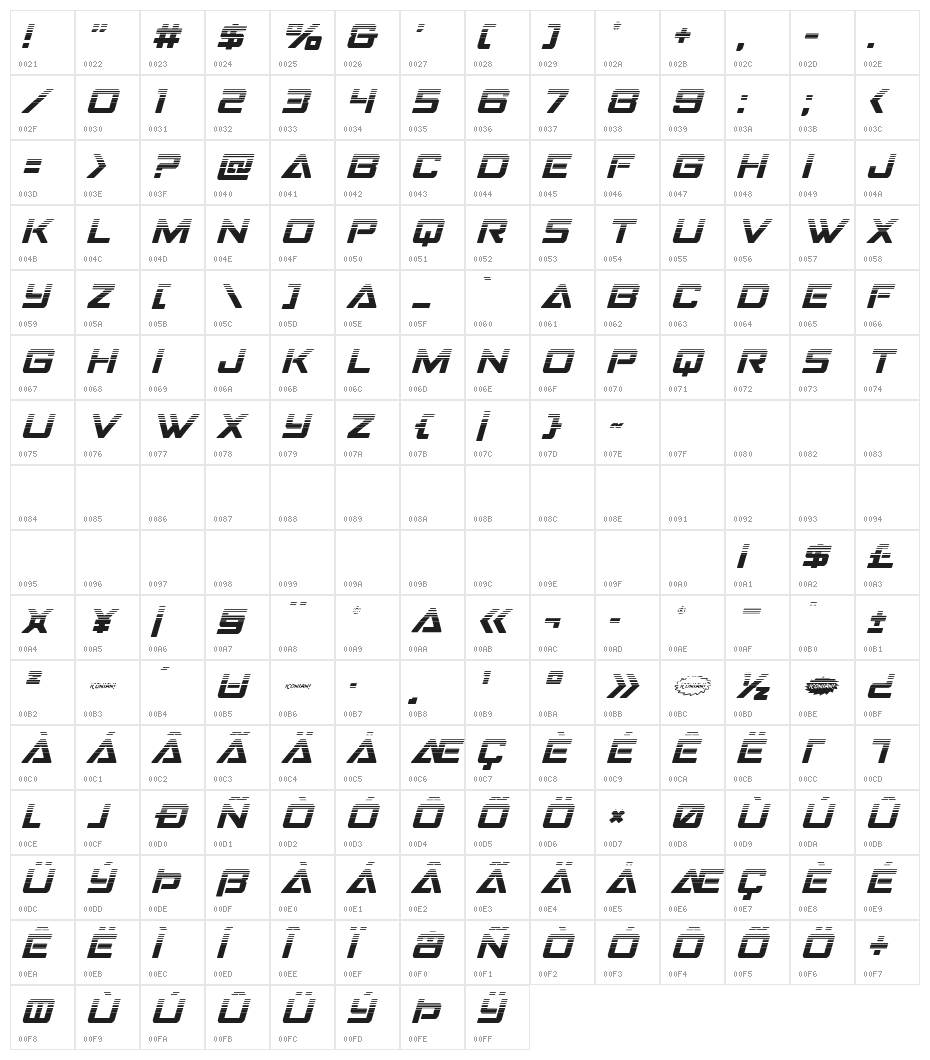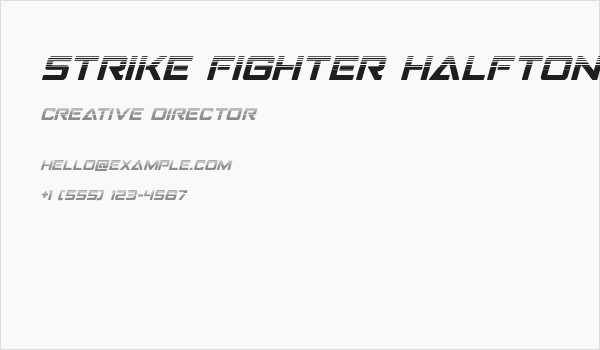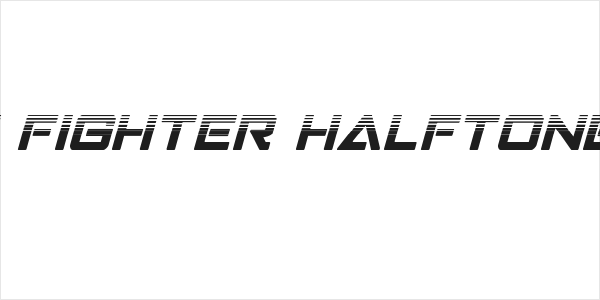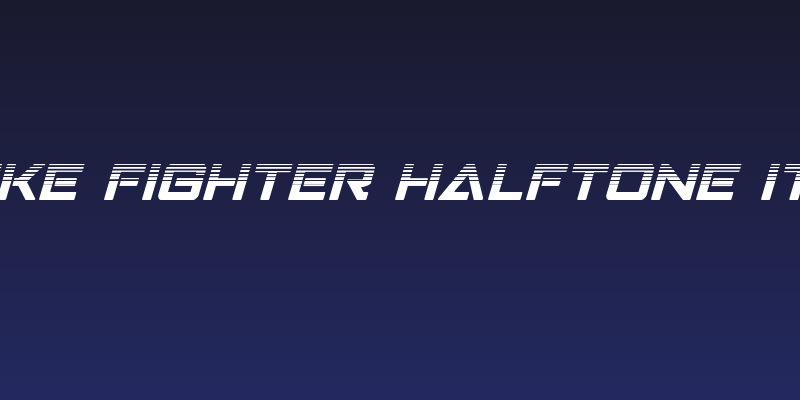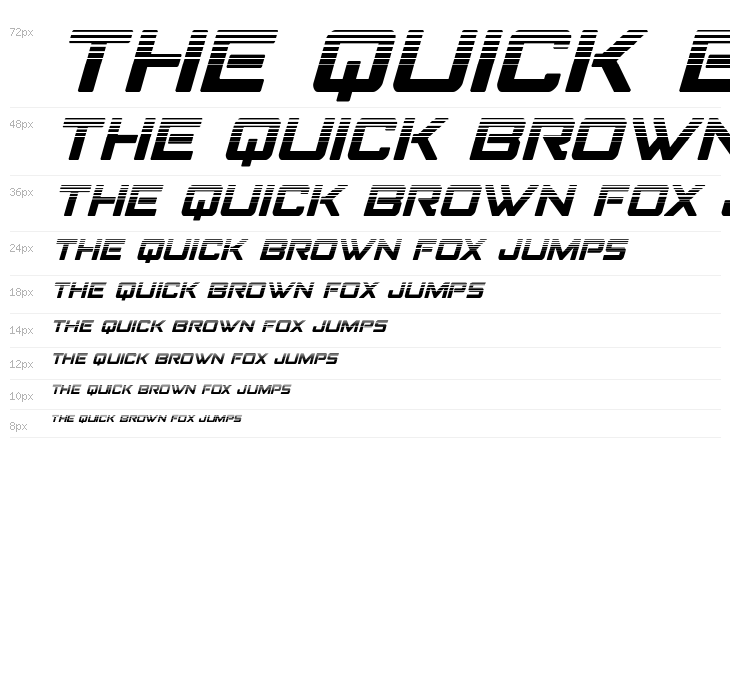
Strike Fighter Halftone Italic Font
Strike Fighter Halftone Italic Description
This font features a bold, italicized style with a distinct halftone effect, creating a dynamic and futuristic appearance. The uppercase letters are characterized by sharp angles and a sense of motion, enhanced by the horizontal lines that cut through each character. The numbers and special characters maintain this energetic theme, making the font ideal for projects that require a modern and edgy look. The overall design suggests speed and technology, making it suitable for use in digital and tech-oriented contexts.
| Overall Style | Futuristic, Dynamic |
| Proposed Projects | Perfect for tech branding, video game titles, futuristic posters, and digital media. |